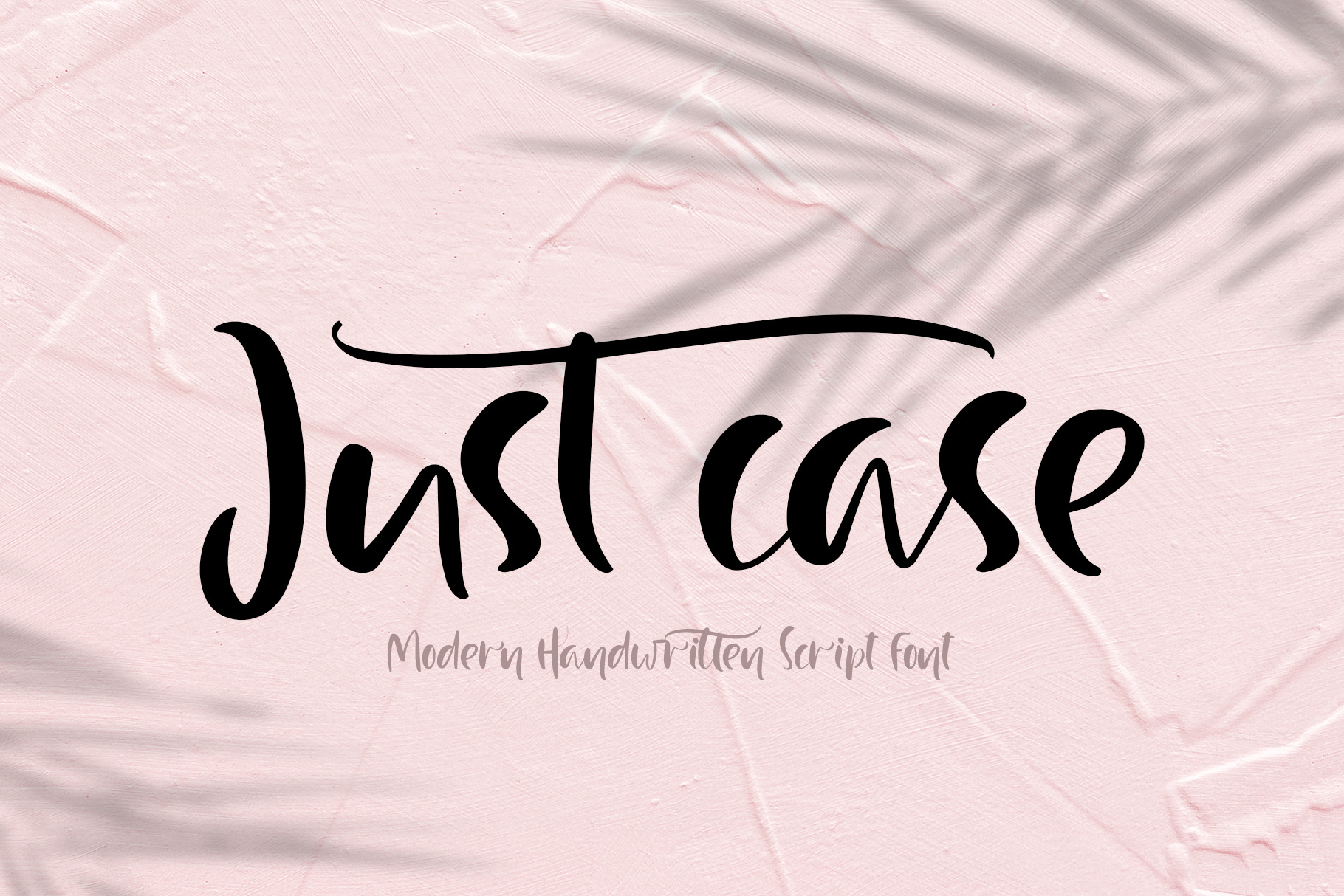
Just Case Modern Script Font
Handmade calligraphic Just Case Modern Script Font is display font with alternative flourish lowercases and ligatures.
Write your text and change if you want on alternative characters. Ligatures are inserted by themself when you write a certain combination of letters. For example th, ll, ff, fl.